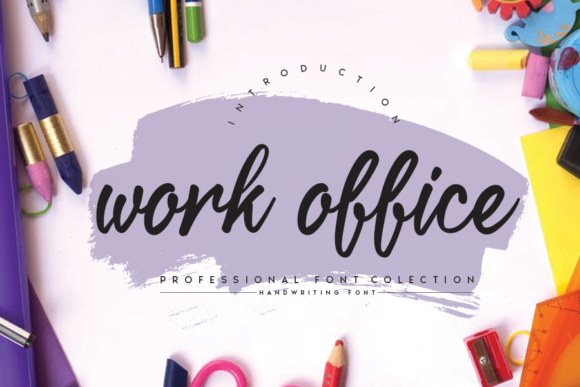
Dive into the enchanting world of Work Office, a display font that embodies the epitome of elegance and creativity. Crafted with meticulous attention to detail, this font is your gateway to transforming your digital canvas into a captivating masterpiece.
Indulge in the allure of Work Office, a font that will ignite your imagination and elevate your designs. Its meticulously crafted characters exude an air of sophistication, making it the perfect choice for those seeking a touch of refinement. Whether you're a seasoned designer or a novice enthusiast, Work Office is your key to unlocking a world of endless possibilities.
Embrace the versatility of Work Office, a font that effortlessly adapts to a myriad of creative endeavors. Its versatility knows no bounds, extending from captivating Instagram posts to heartfelt calligraphy scripts for your most cherished DIY projects. With Work Office as your creative ally, every idea will blossom into a breathtaking work of art.
Step into the realm of Work Office, a font that will enchant your audience and leave an unforgettable impression. Its enchanting curves and delicate flourishes possess a captivating charm that will captivate hearts and minds alike. Experience the magic of a font that transforms ordinary words into extraordinary works of art.